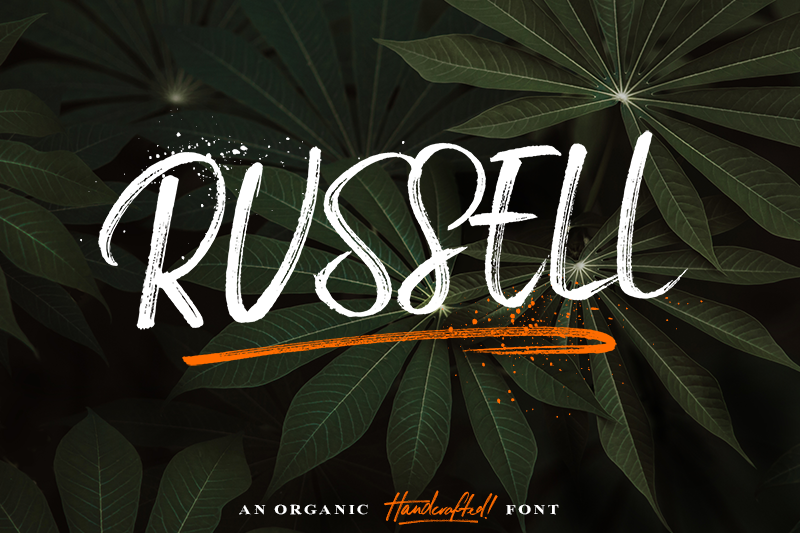
Russell Typeface
Introducing Russell – An organic and expressive handwritten brush script font designed for versatility. It’s legible; making it perfect for product packaging, editorial work, and poster design, and it oozes personality; great for branding, invitations, and more.
| Designer Name: | Tom Chalky |
| Classification: | Brush Fonts, Script Fonts |